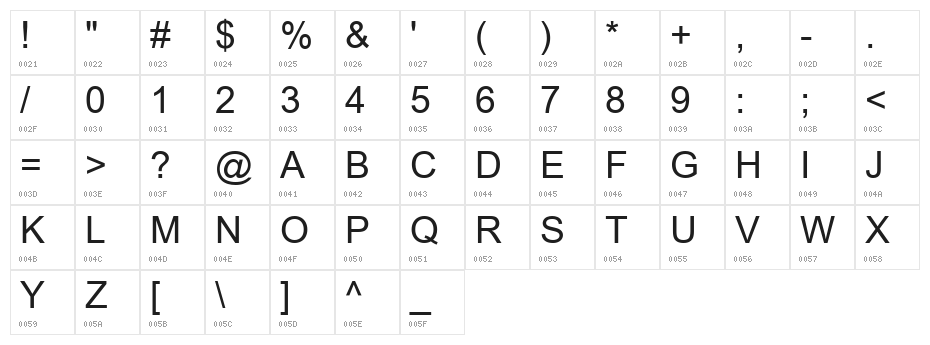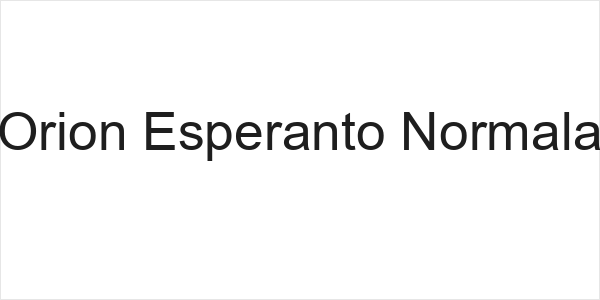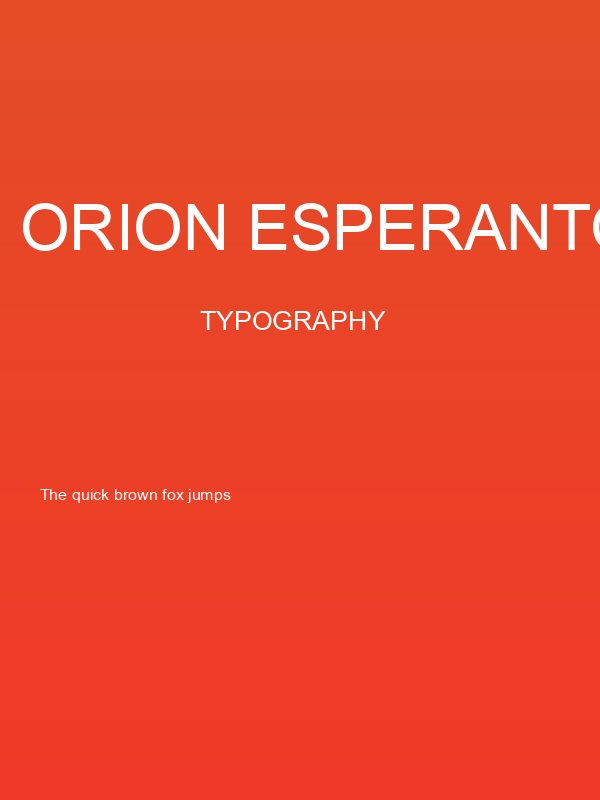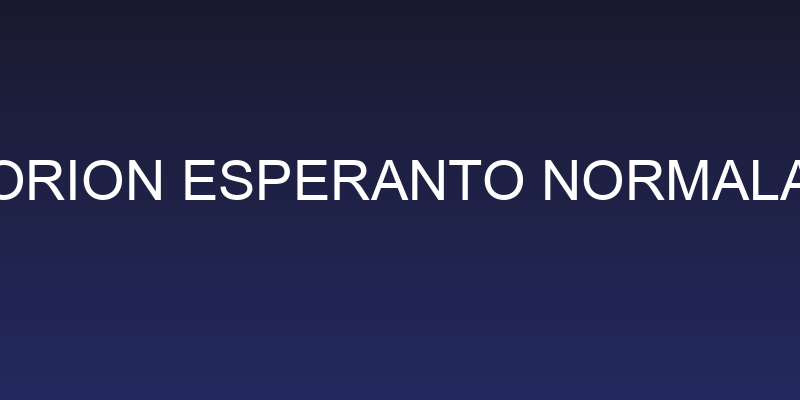
Orion Esperanto Normala Font
Orion Esperanto Normala Description
This font features a clean and modern sans-serif design, characterized by its simplicity and clarity. The letters are evenly spaced, providing excellent readability. The uppercase characters are bold and assertive, while the lowercase letters maintain a consistent height and width, ensuring uniformity across text. Numbers are straightforward and align well with the overall style, making them easy to read. Special characters are distinct and well-integrated, enhancing the font's versatility. This font is ideal for projects that require a professional and contemporary look.